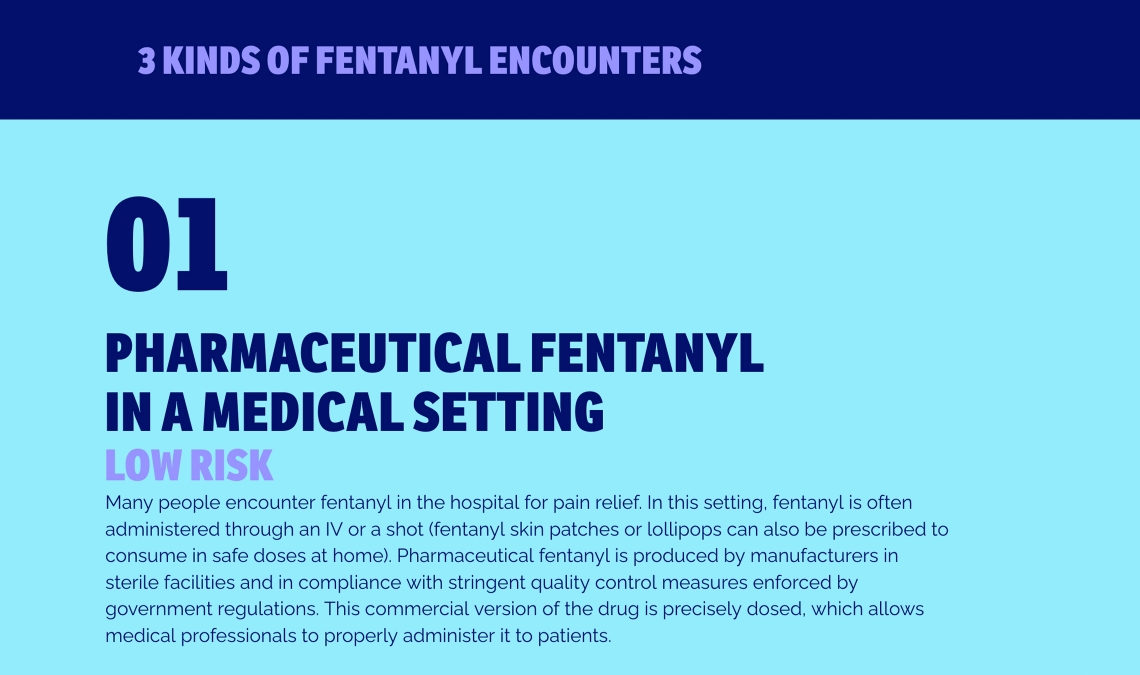
Ronnia in anti-fentanyl campaign
Accidental fentanyl deaths have reached all-time highs. This campaign intends to bring awareness to this issue in hopes of ending these deaths.
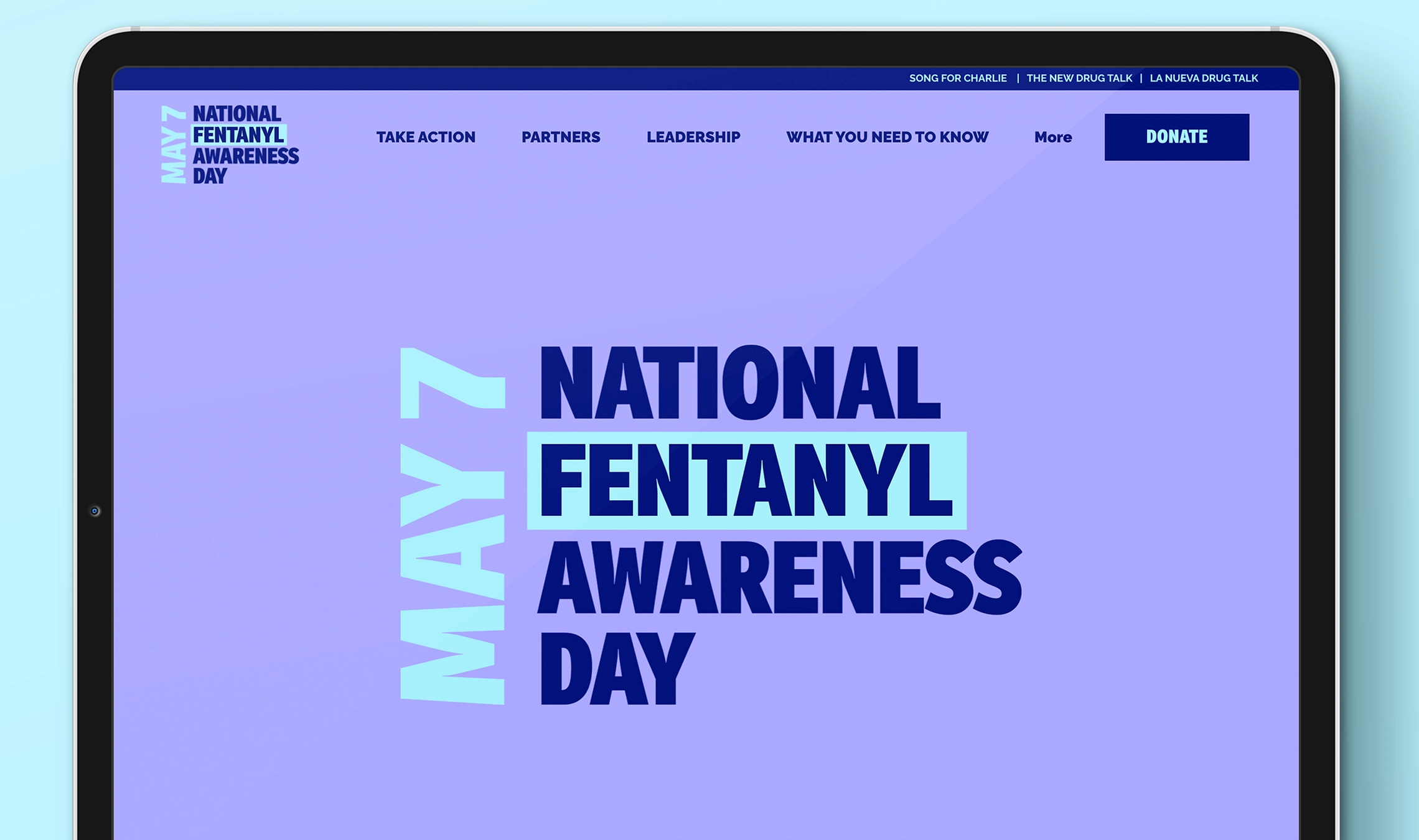
National Fentanyl Awareness Day brings together individuals, parents, teachers, corporations, influencers, community groups, and government entities to help put an end to the fentanyl emergency.
Over 70,000 Americans fatally overdosed on illegally made fentanyl in 2023. Fentanyl is now found in fake pills and many street drugs, but users are often unaware that their drugs contain the exceedingly potent opioid. This is an urgent public health crisis that puts all of us, and our loved ones, at risk. The awareness day, held on 7 May each year, is intended to prevent further tragedies.
Ronnia was chosen to speak clearly and boldly in this campaign. The primary branding, headlines, and large text are all set in Ronnia, an hospitable sans, ready to serve the reader in wide editorial use.